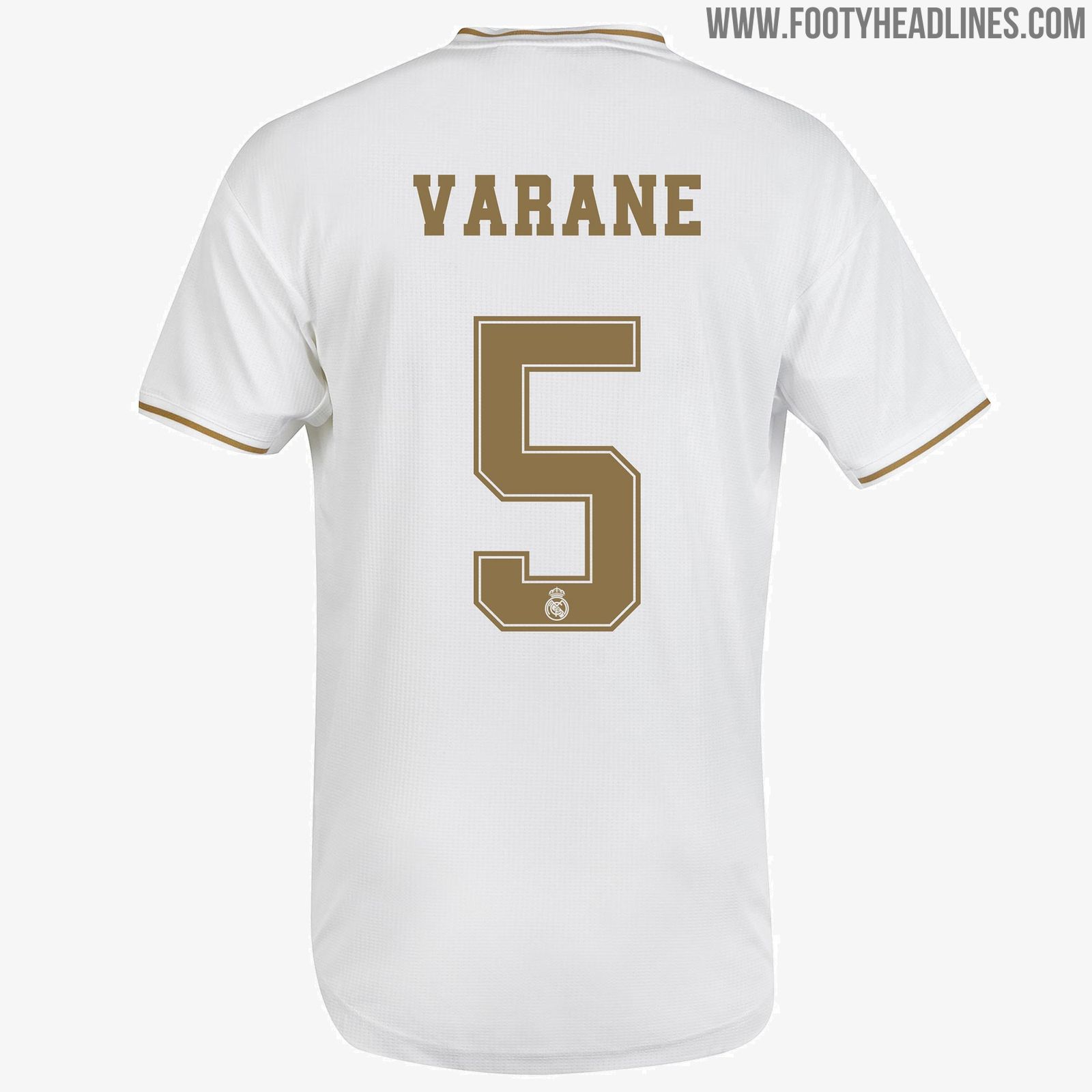
Hazard Confirmed?! Classy Real Madrid 19-20 Kit Font Released
We today get a full look at the bespoke Real Madrid font for next season, which was released together with the new home kit. Due to La Liga having a league-wide font, we will only see this style on display in the UEFA Champions League.
Real Madrid 19-20 Font
This picture shows the Real Madrid typeface.
Real Madrid updates its font every season and, to go with the classy white-and-gold 19-20 home kit, the new one has a retro vibe to it.
The design is inspired by classic football fonts from the 1980s and 90s. It has a geometrical concept and features a thin line just next to the border. A small Real Madrid crest sits at the bottom of the numerals.
The letters share the same style and are fairly readable, creating a fitting and adequate design for the Spanish giants.
We will see the same gold font used on the midnight navy Real Madrid away kit.